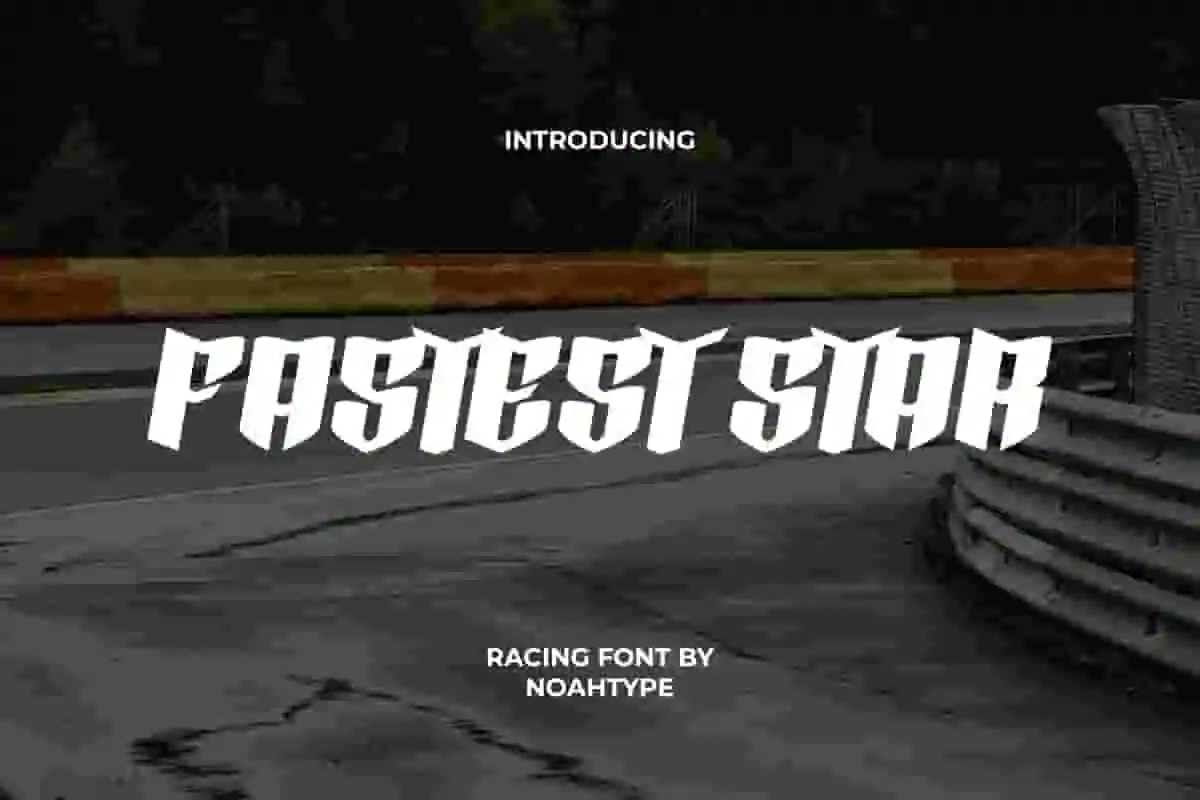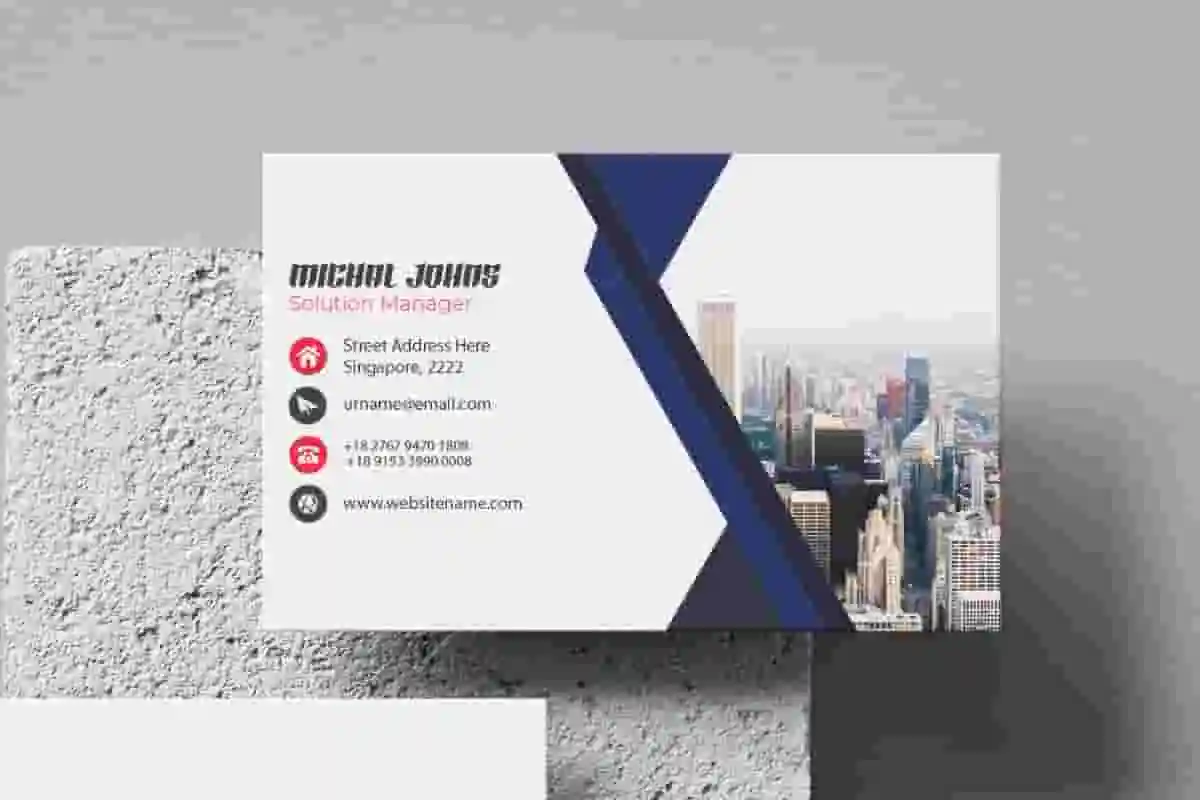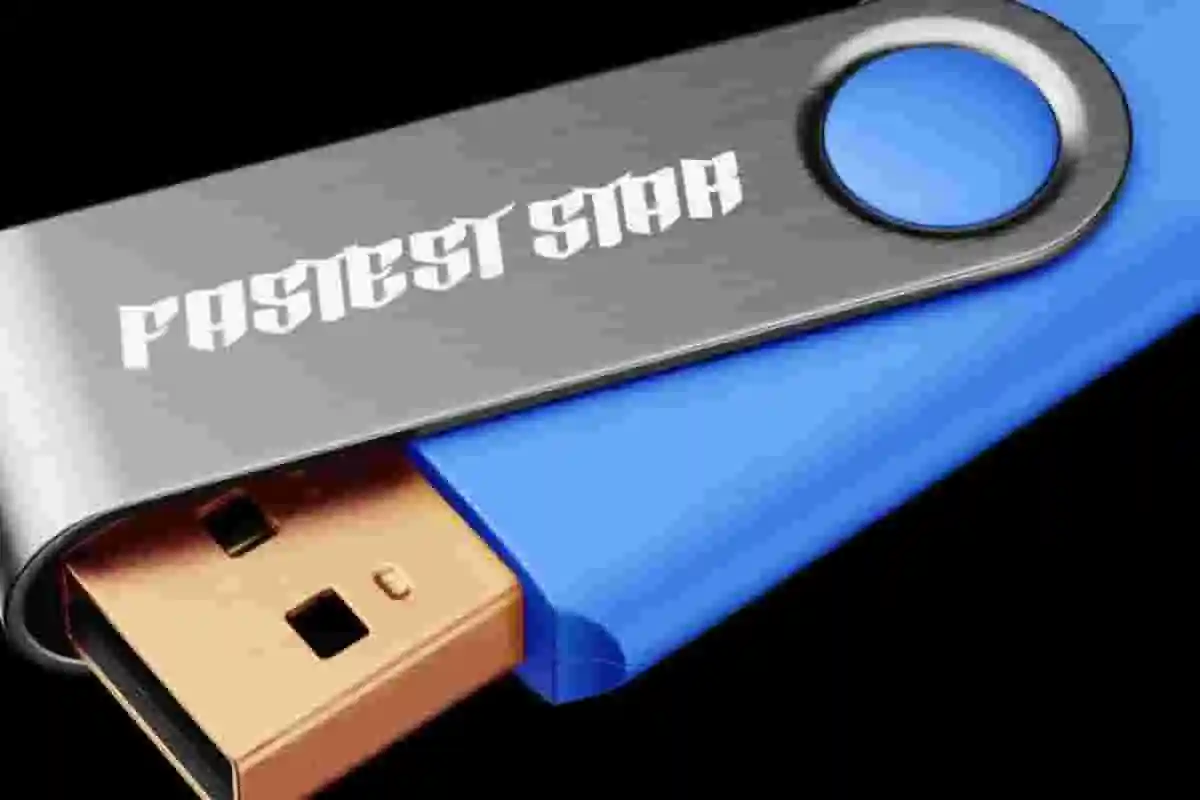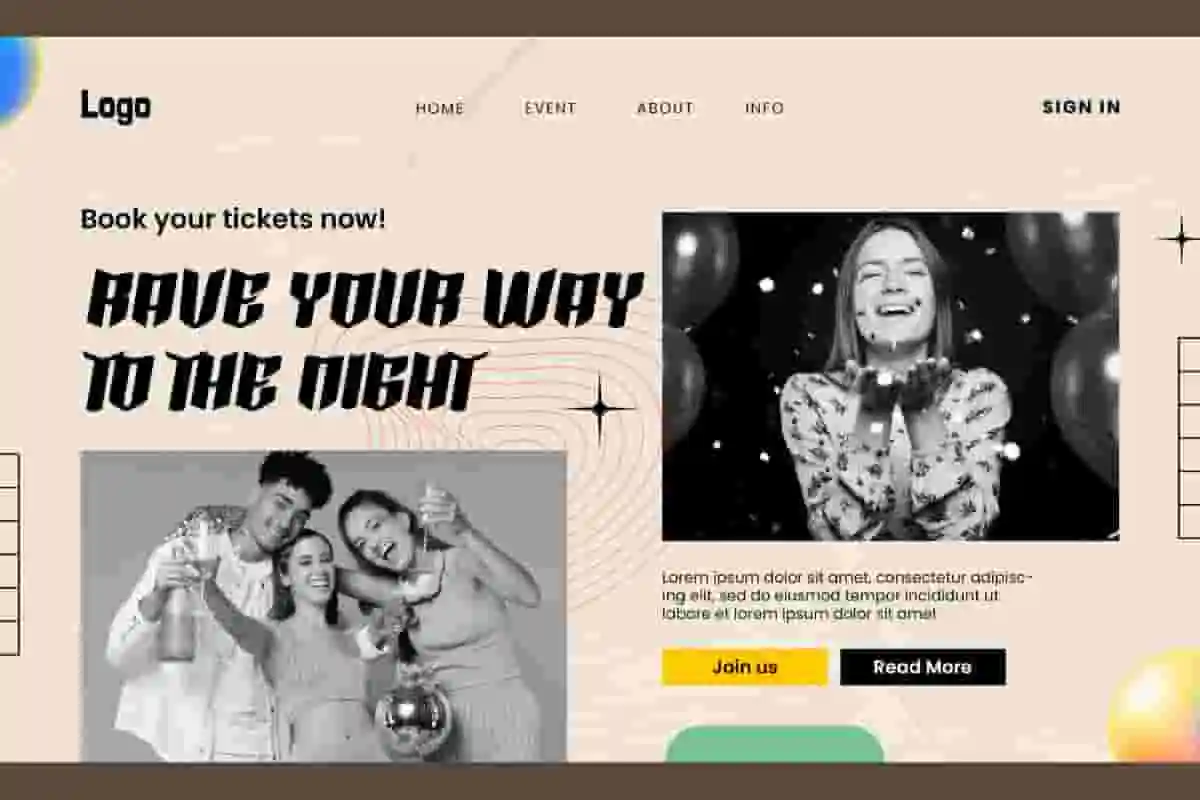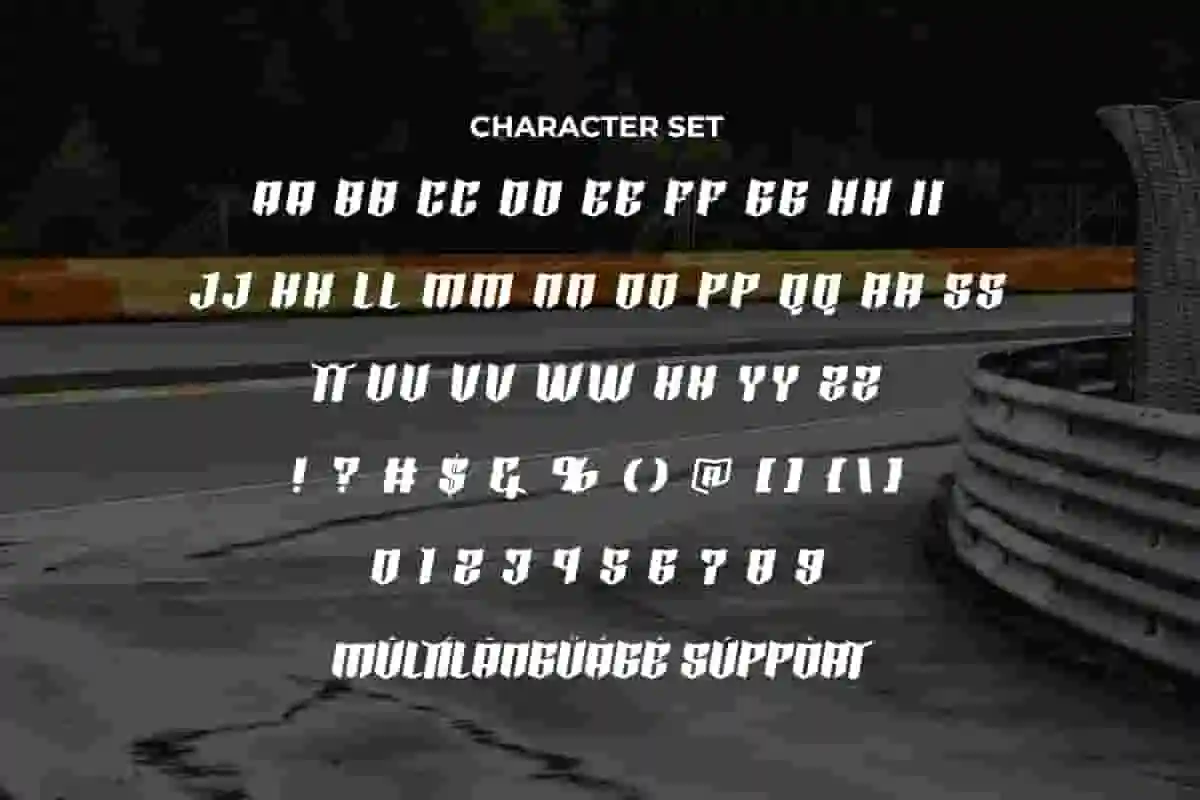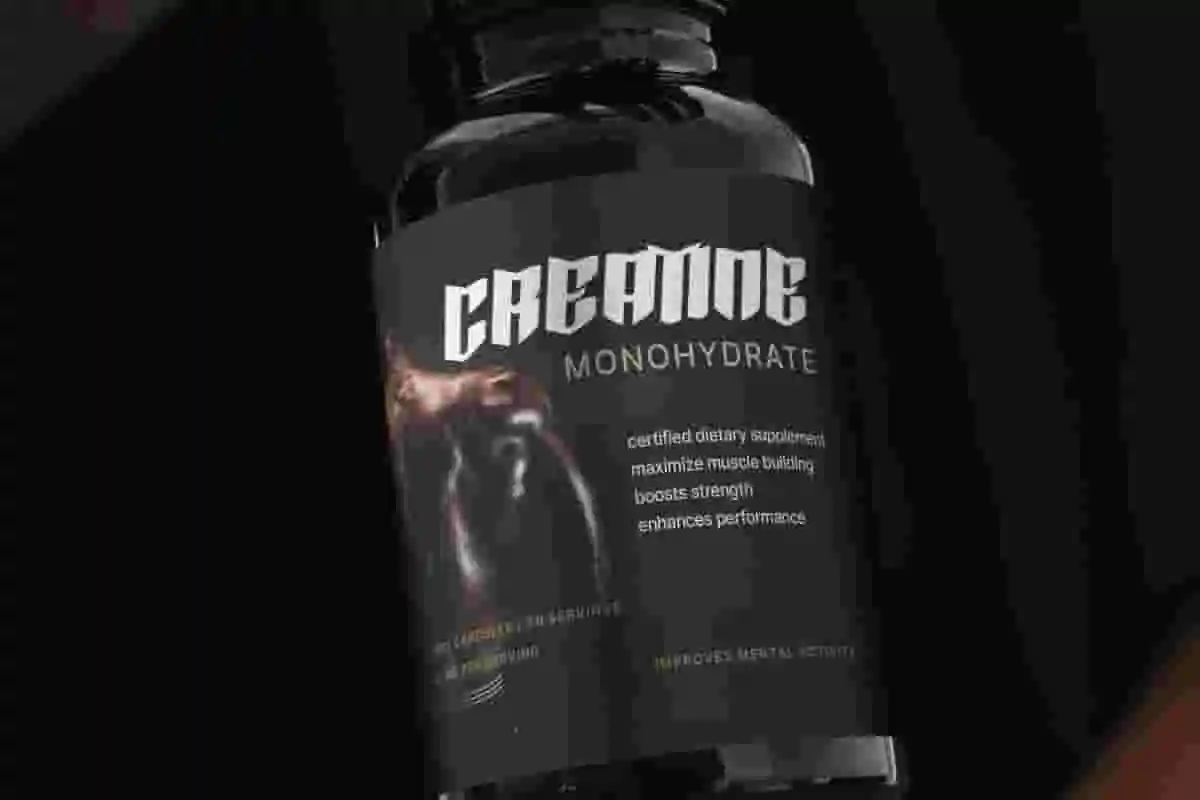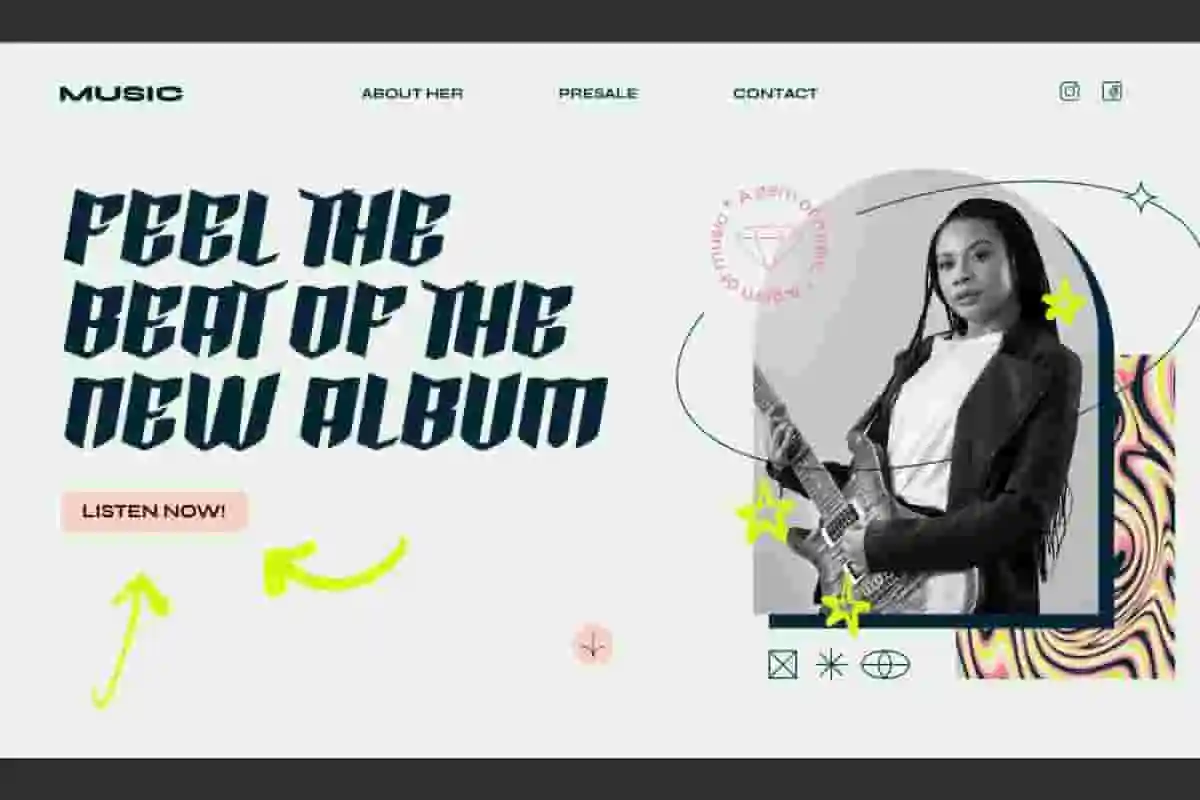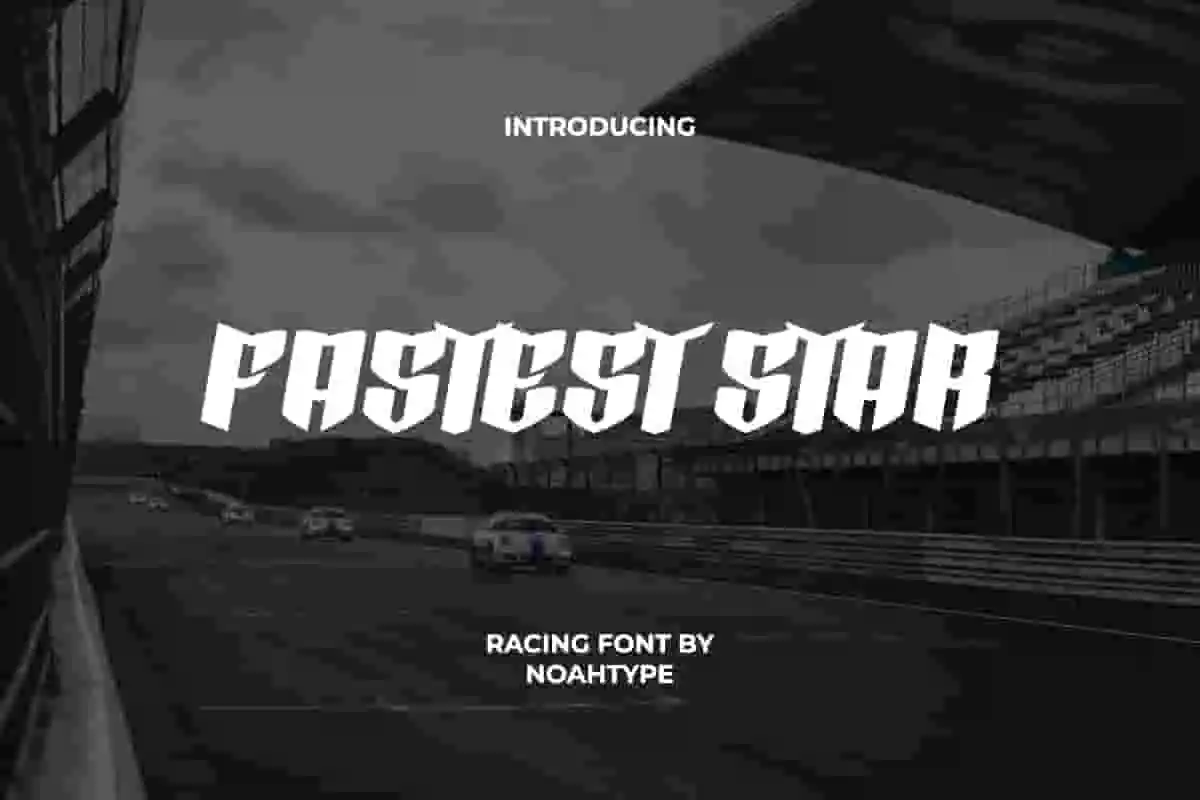
Fastest Star Font is a racing concept display font with a unique shape, created by NoahType. This font has bold characters so it is still easy to read with an attractive shape. This font will be suitable for a lot of projects, such as custom design, signage, label, business card, catalog, cover, poster, quotes, website, and more!
Fastest Star Font includes full set of Uppercase and Lowercase Basic Characters, Numerals and Punctuation. This font has an attractive appearance that will make you believe it is the perfect choice for many industries, such as sports, racing, game, automotive, advertisement, café, event organizer, fashion, printing, publishing, etc.